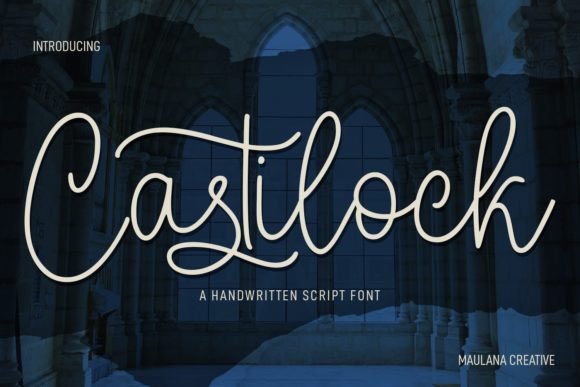
Embark on a typographic journey with Castilock, an enchanting script font that captivates with its graceful curves and elegant lines. Crafted by the talented Maulana Creative, Castilock embodies a casual and cursive style, exuding a timeless charm that adds a touch of sophistication to any design project.
Immerse yourself in the world of Castilock, where each letter dances across the page with a regular mono-line stroke, creating a visually stunning effect. Unleash your creativity with a playful character set adorned with ligatures and alternates, allowing you to craft designs that speak volumes.
Step into the spotlight with Castilock, the perfect font for those seeking to make a statement. Its versatility knows no bounds, making it an ideal choice for logo design, where it commands attention and leaves a lasting impression. Craft captivating social media posts that pop off the screen, drawing your audience into your captivating content.
Let Castilock transport you to the silver screen, where it adds a touch of cinematic magic to movie titles, evoking a sense of wonder and anticipation. Journey into the realm of literature, where Castilock graces book titles with its timeless elegance, inviting readers to delve into captivating tales.
Whether you're crafting short, snappy headlines or immersing yourself in long, flowing prose, Castilock adapts seamlessly to your creative vision. Pair it with sans or serif fonts to create visually striking designs that captivate and engage your audience.
With Castilock, the possibilities are endless. Turn your creative visions into reality, crafting stunning works of art that leave a lasting impact. Make a statement, elevate your designs, and embark on a typographic adventure like no other. The world of Castilock awaits – seize the opportunity to make your mark!